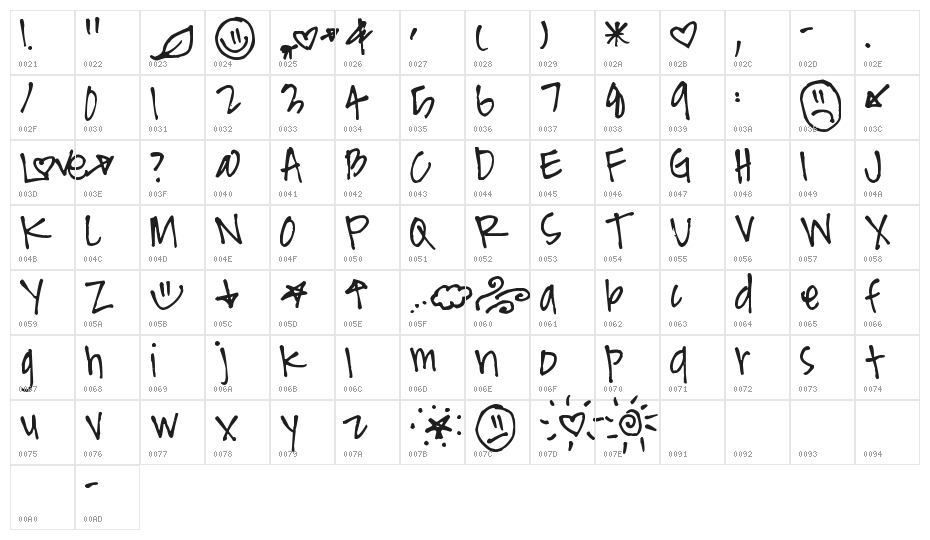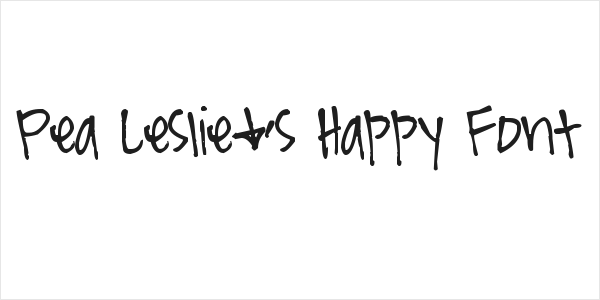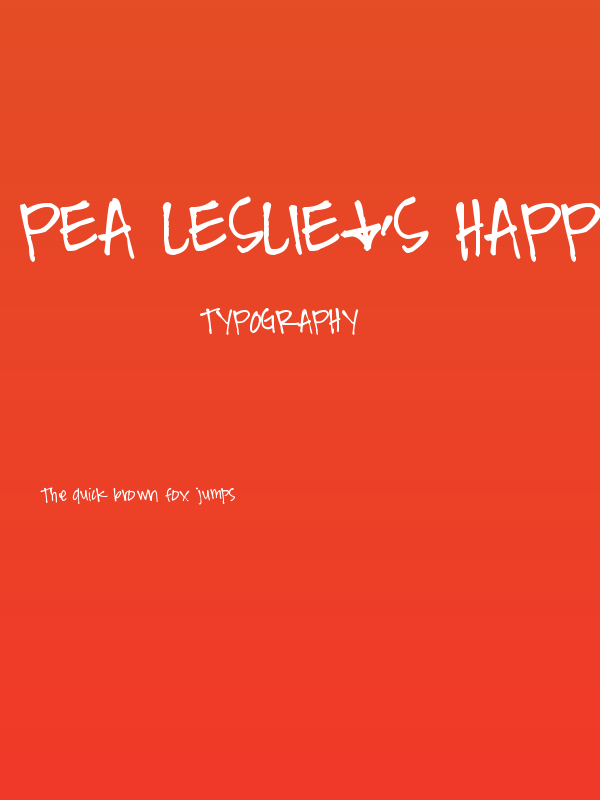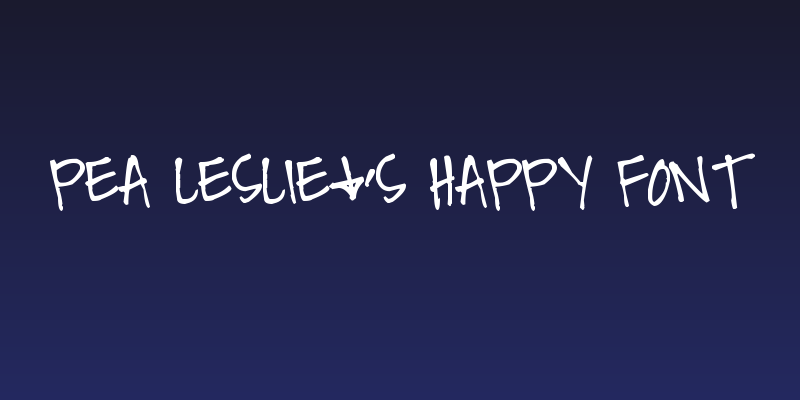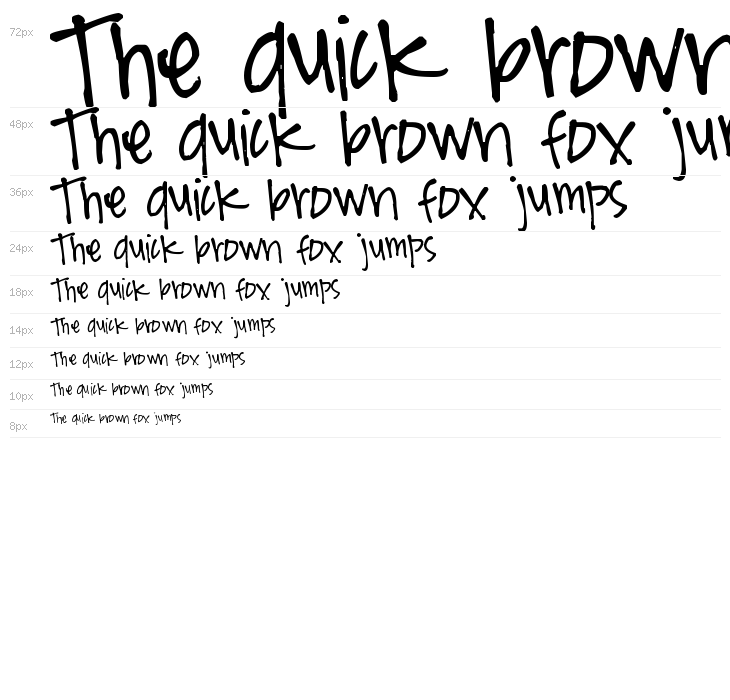
Pea Leslie's Happy Font Font
Pea Leslie's Happy Font Description
This playful and whimsical font features a handwritten style with a casual and friendly appearance. The letters are unevenly sized, adding to its charm and informal feel. The strokes are bold and slightly irregular, giving it a lively and dynamic look. The font includes both uppercase and lowercase letters, numbers, and a variety of special characters, making it versatile for different uses. Its unique style is perfect for projects that require a personal touch or a fun, lighthearted vibe.
| Proposed Projects | Ideal for greeting cards, children's books, playful branding, and social media graphics. |